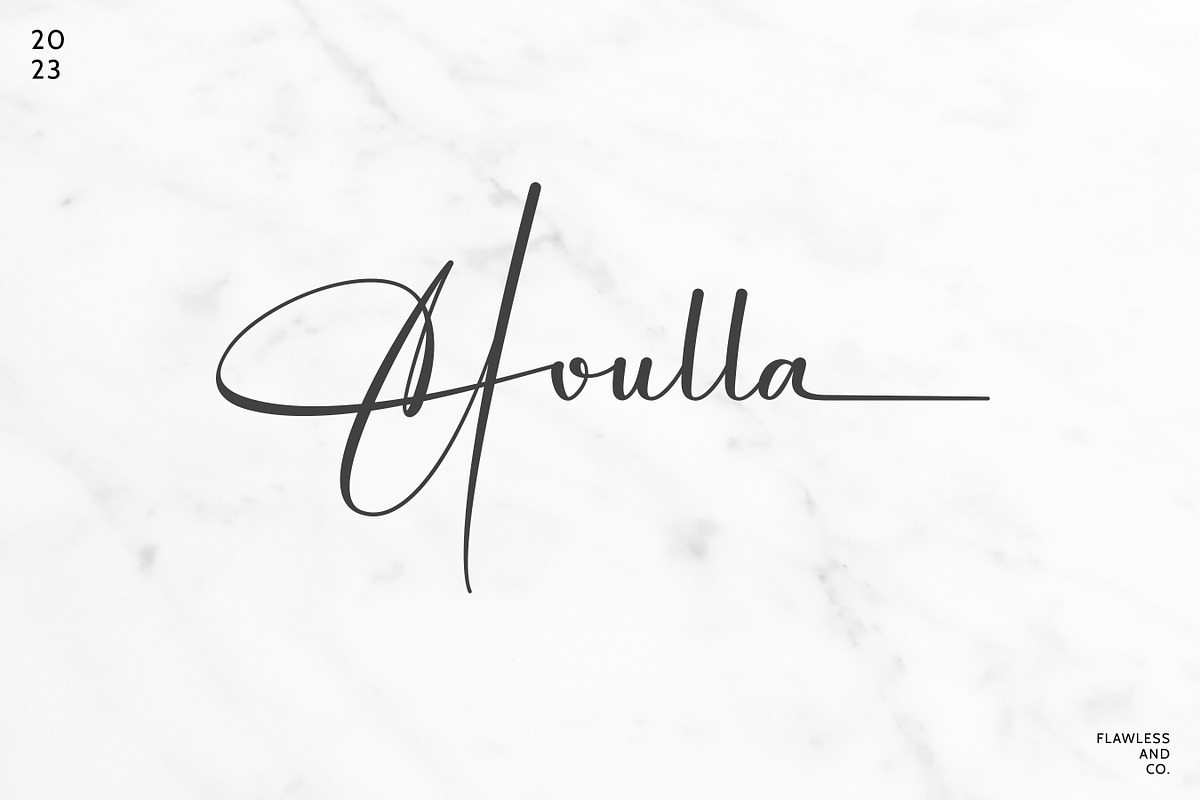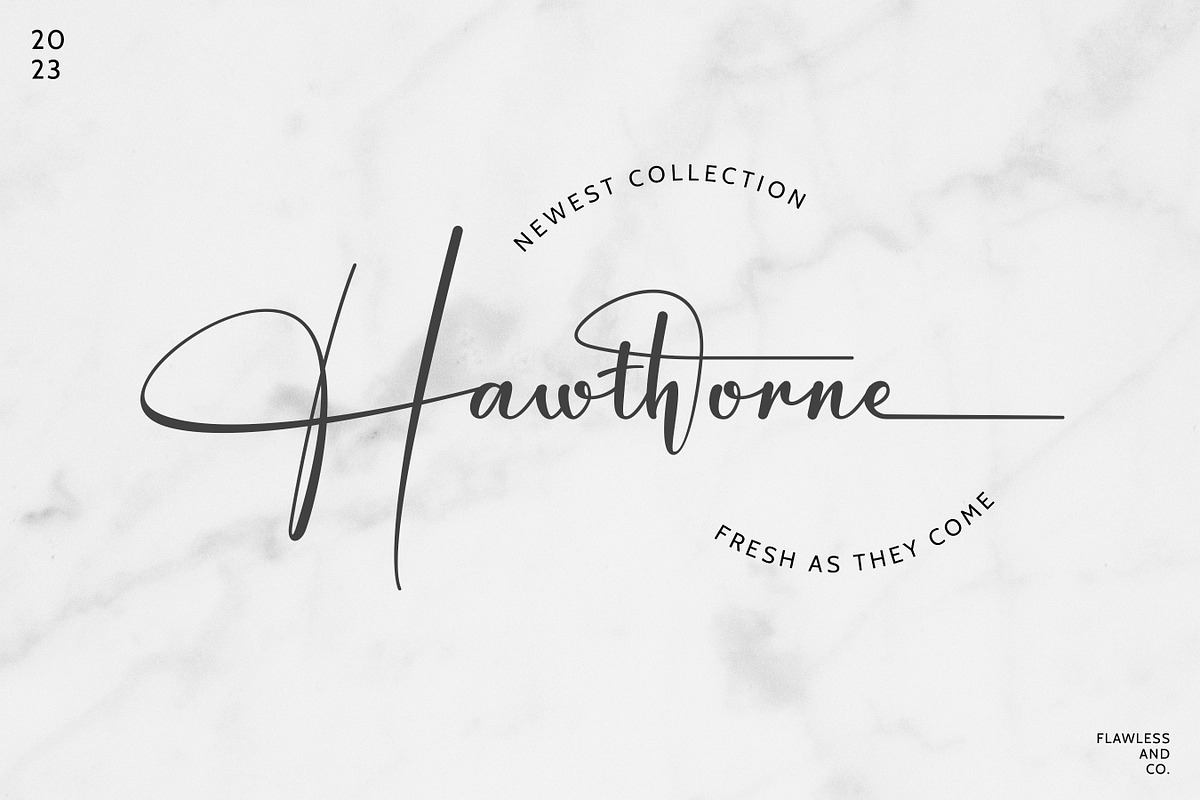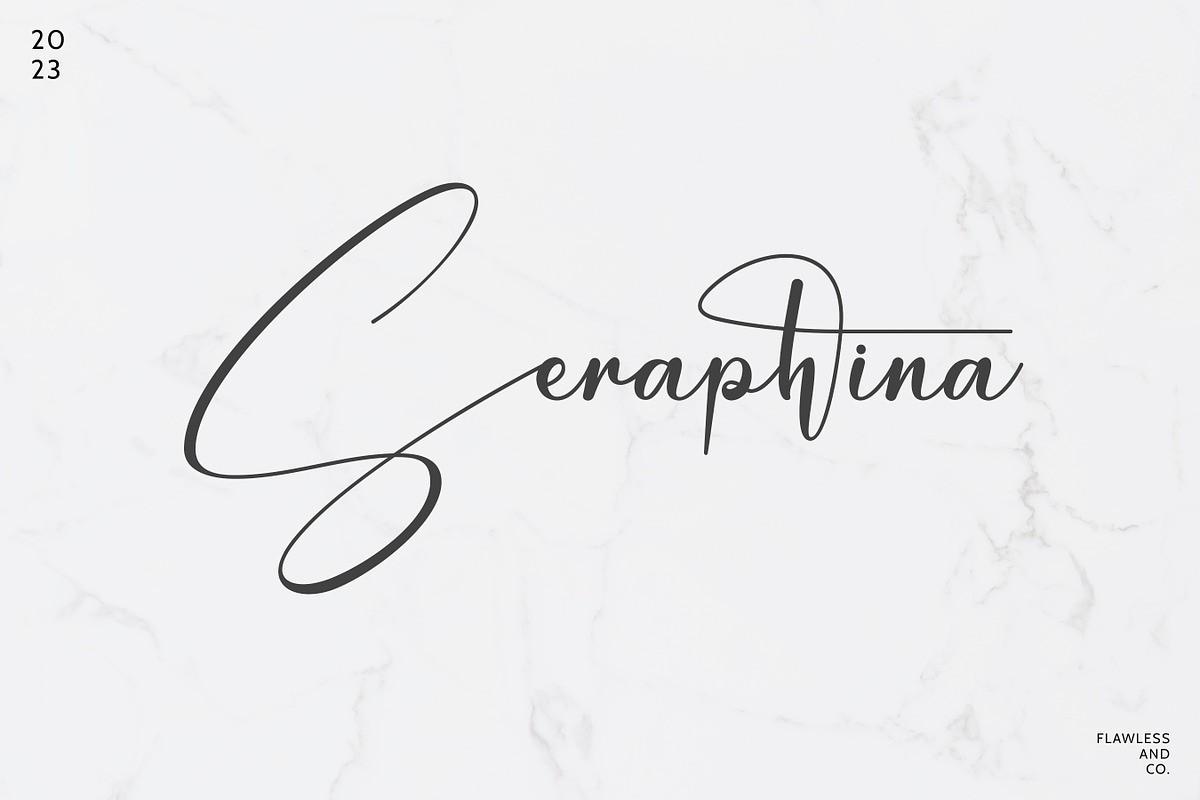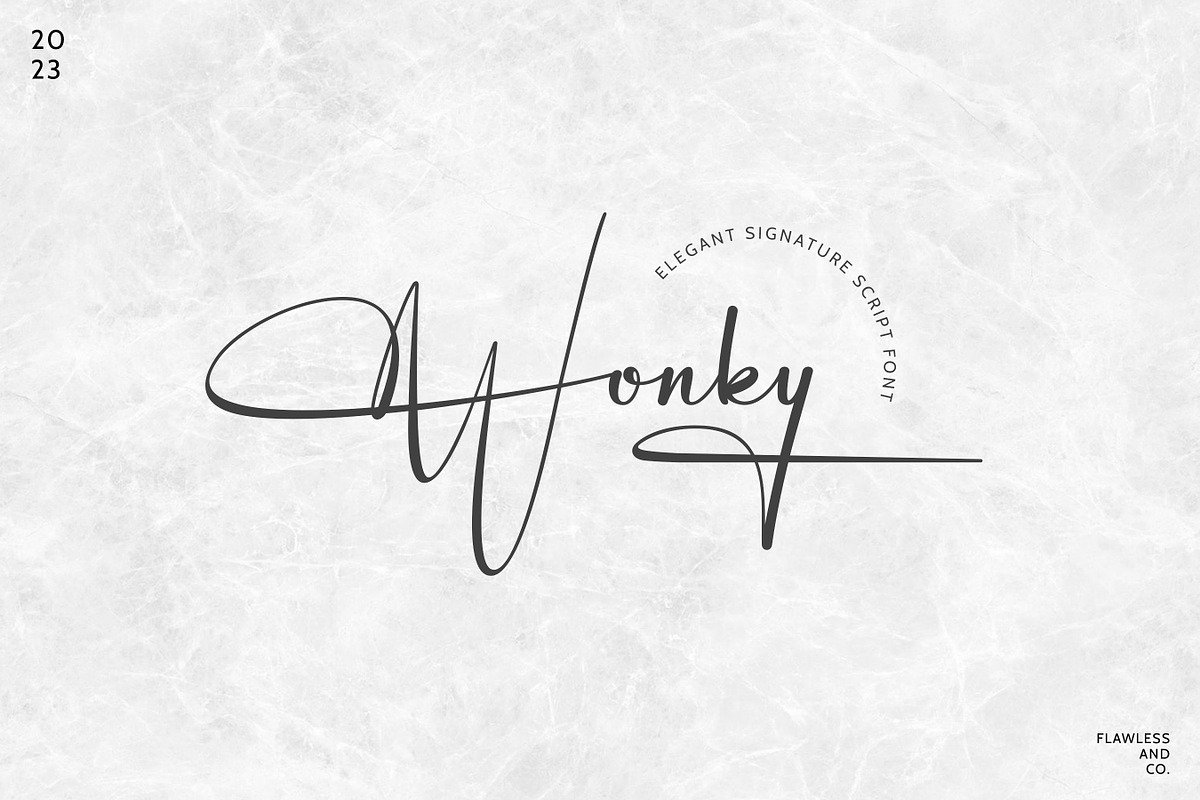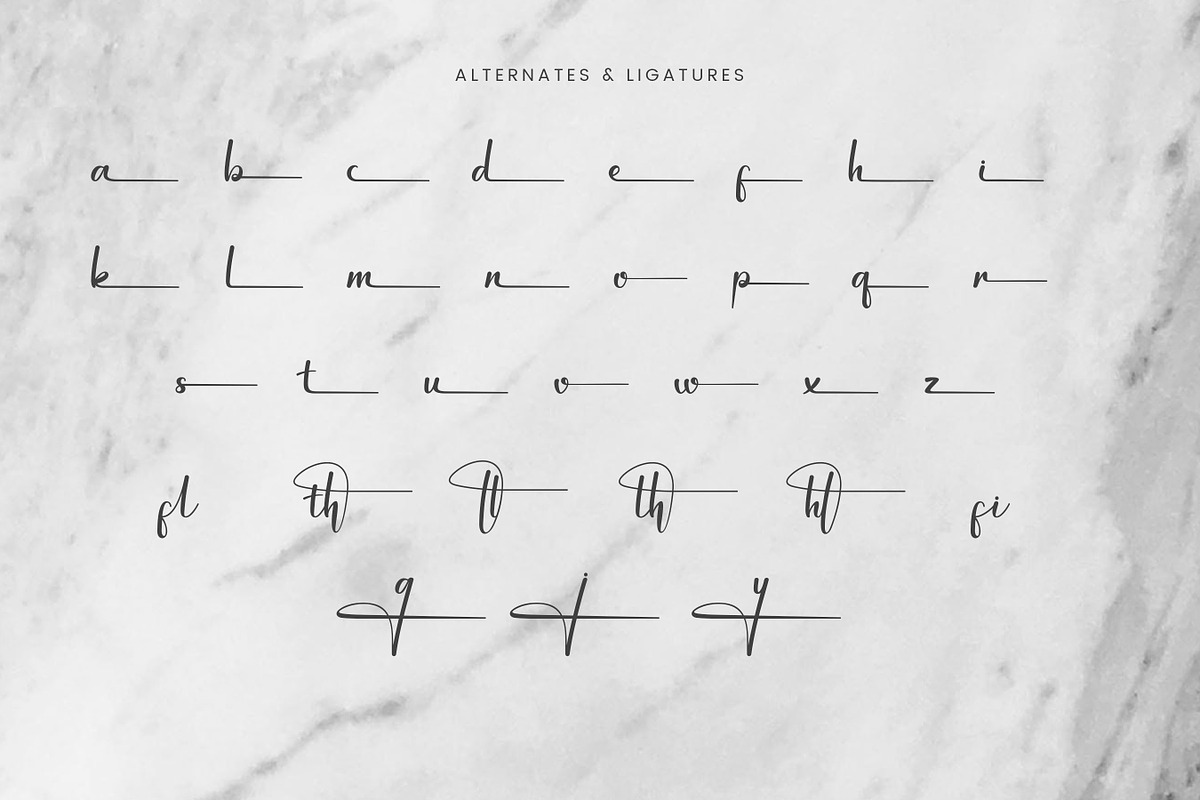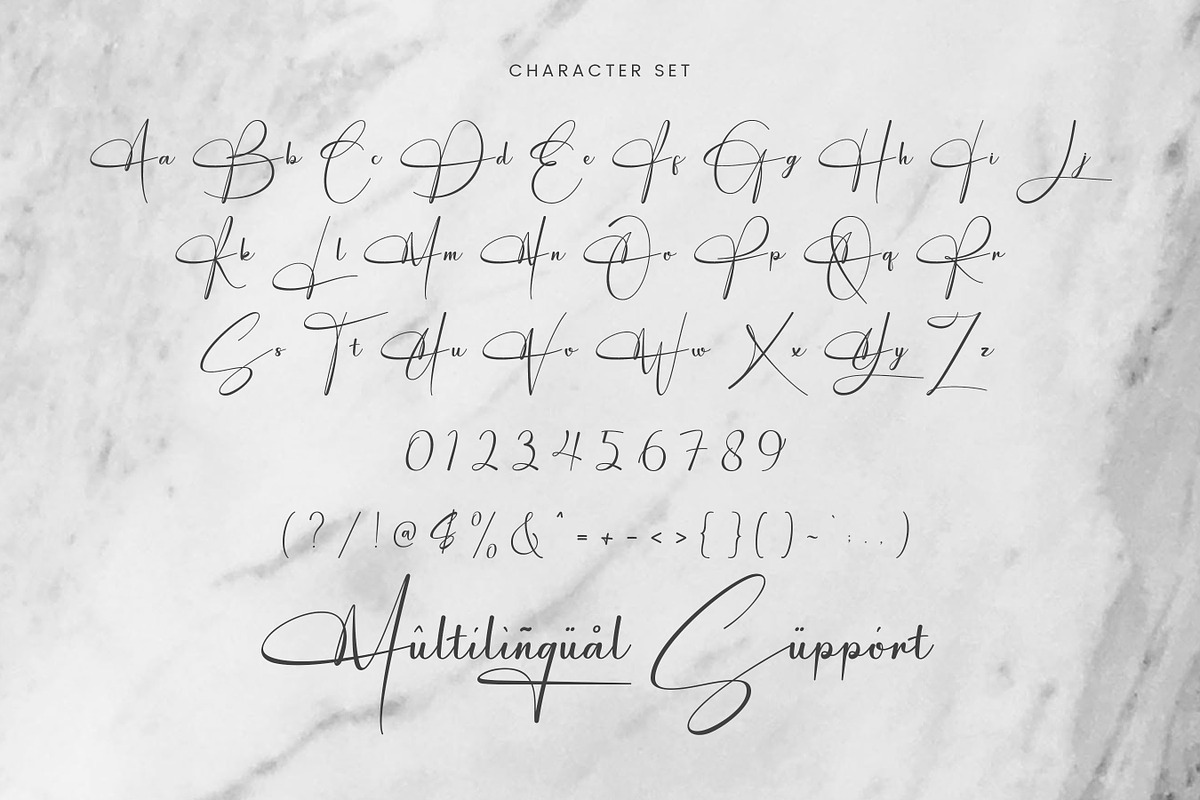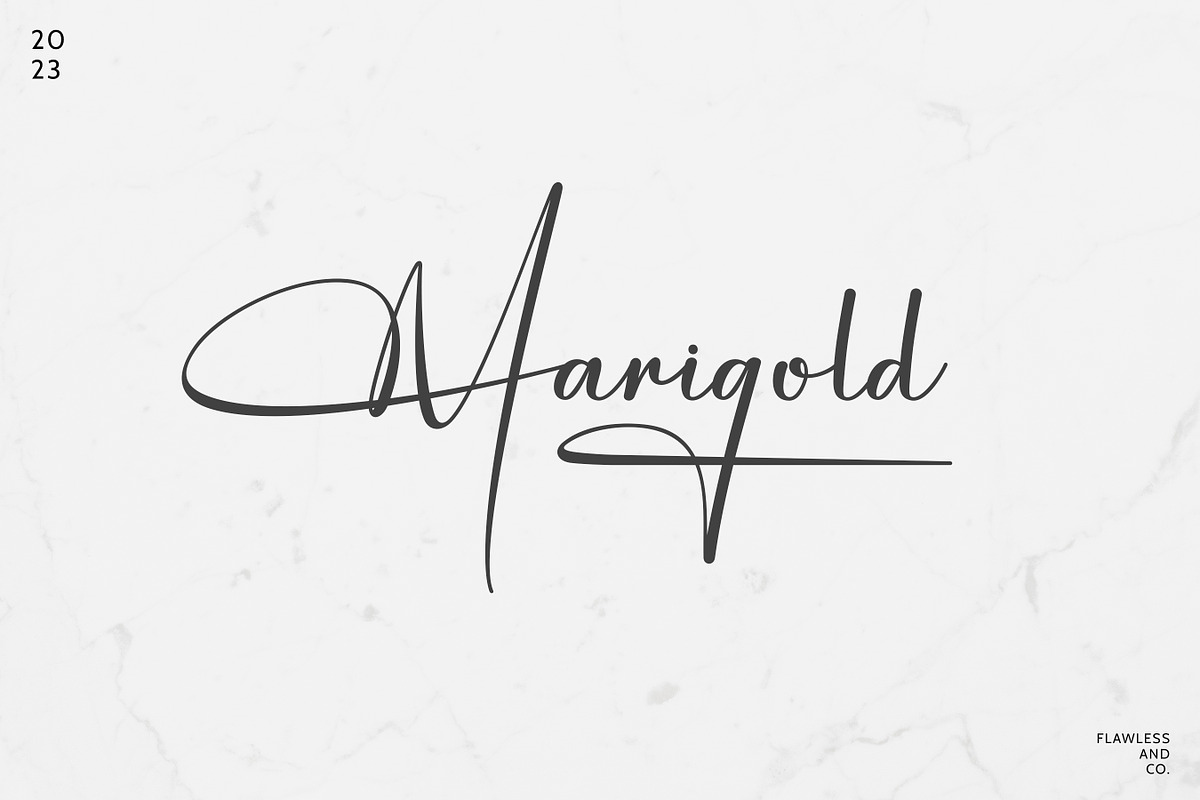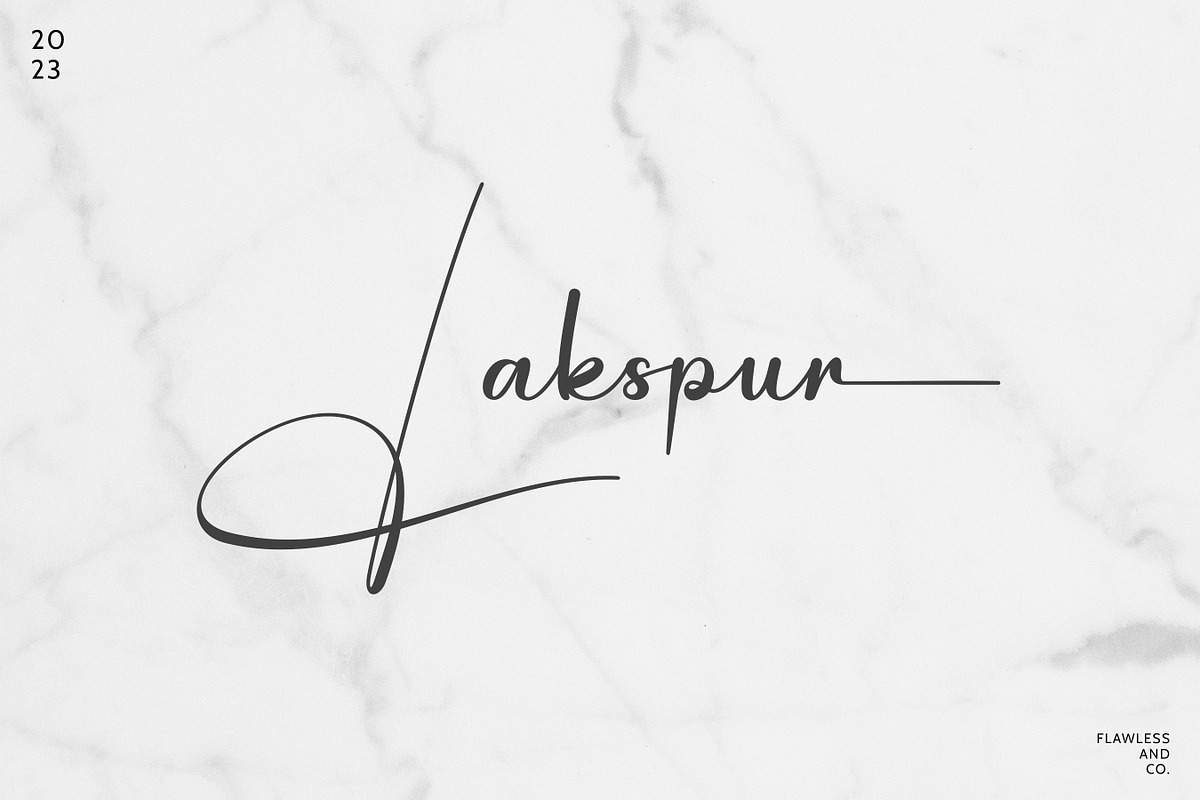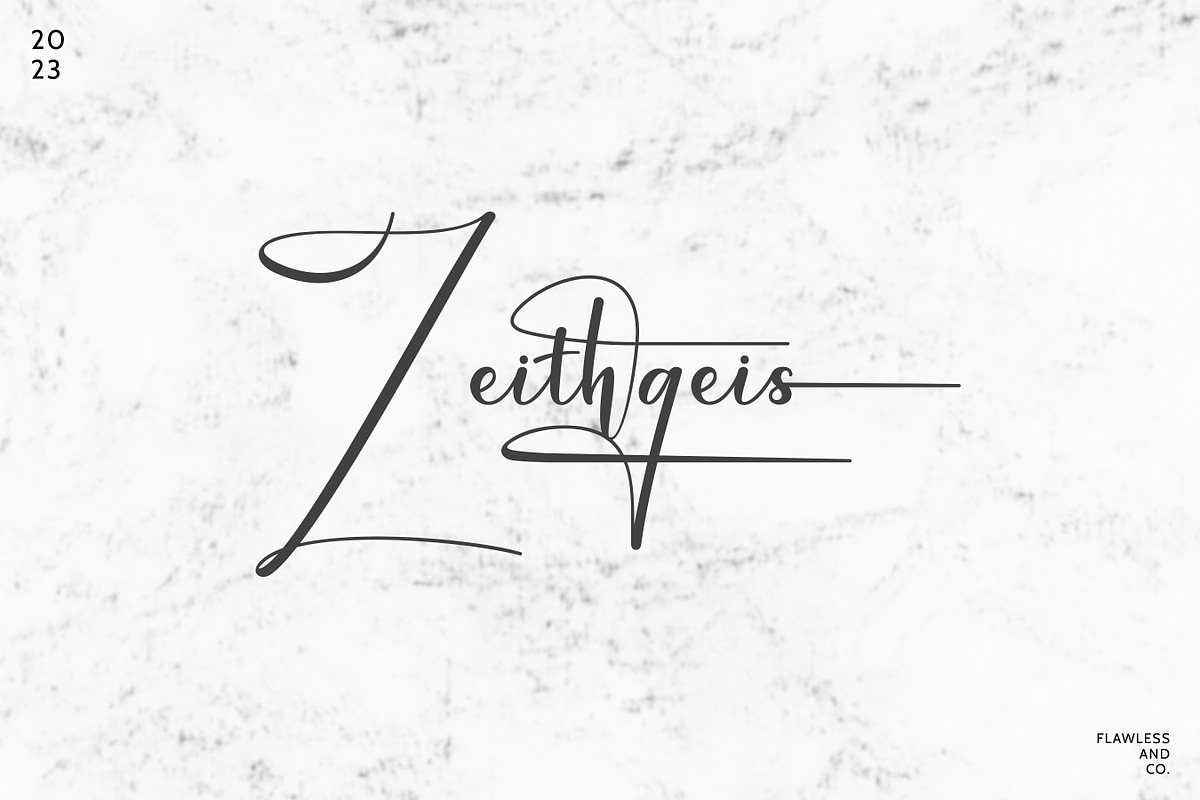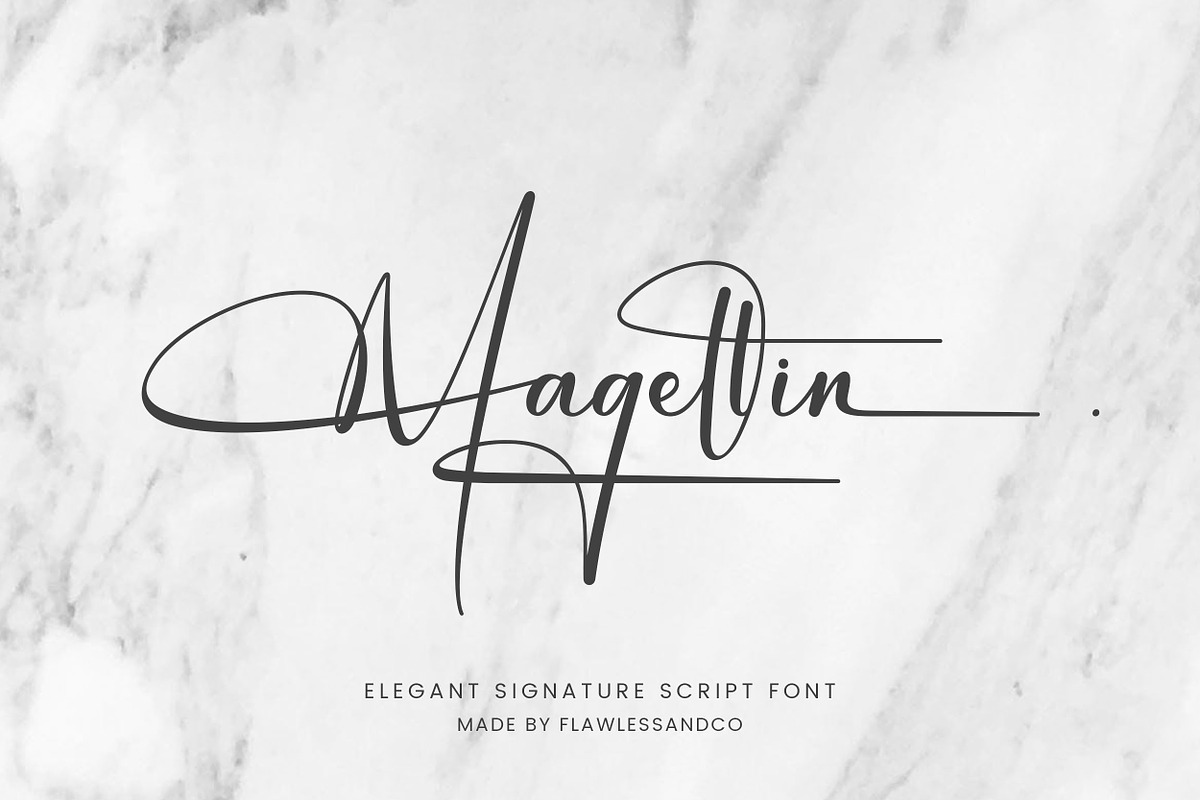
Magellin - Elegant Signature Script
Introducing "Magellin" - An Elegant Signature Script Font. Unlock the allure of elegance and sophistication with "Magellin," an exquisite signature script font that adds a touch of grace and style to your designs. With its fluid lines and timeless charm, "Magellin" is designed to convey a sense of refined elegance and personal touch.
Multilingual Uppercase alphabet A-Z Lowercase alphabet a-z Alternate Character Numbers 0-9 Some punctuation